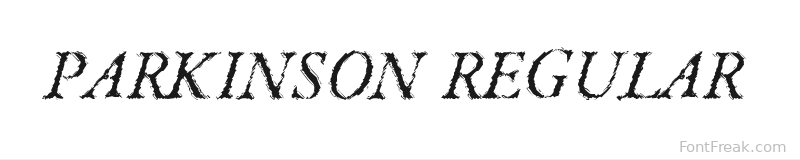
Parkinson Regular
About Parkinson Regular
Parkinson Regular, created by Cloutierfontes, is a captivating serif typeface characterized by its unique visual flair. This font exhibits a slightly roughened texture, adding an organic touch to its otherwise classic serif form. The stroke weight is moderately varied, providing a contrast that enhances readability while still delivering an artistic aesthetic. The letterforms feature a combination of sharp and soft curves, along with decorative elements that evoke a sense of handcrafted quality. The spacing is well-balanced, ensuring that each character breathes while maintaining cohesion in text blocks.
This versatile typeface is ideal for a range of creative applications. It shines in wedding invitations, where its elegant yet informal style can set the perfect tone for special occasions. Additionally, Parkinson Regular works beautifully for restaurant menus, lending a warm and inviting feel that can attract diners. Graphic designers often find it suitable for book covers, especially in genres like romance or historical fiction, where a touch of vintage charm can enhance the overall theme. Furthermore, small business owners can utilize this font for branding materials, such as logos or promotional flyers, to create a distinctive identity that resonates with their target audience.
What sets Parkinson Regular apart is its ability to blend traditional serif elegance with a contemporary, slightly rustic feel. This unique combination allows it to stand out in a crowded font landscape, making it a valuable addition to any designer's toolkit. Whether used for digital or print projects, this font promises to leave a lasting impression.